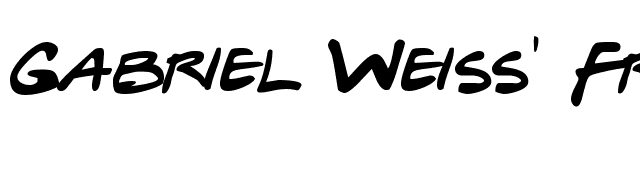
Gabriel Weiss Font Stencil. Gabriel weiss' friends font by gabriel weiss. To get the same title effect you need to add dots between the letters.
Gwff is the result of a personal project. Gabriel weiss friends font was created by gabriel weiss. Gabriel weiss' friends font by gabriel weiss.